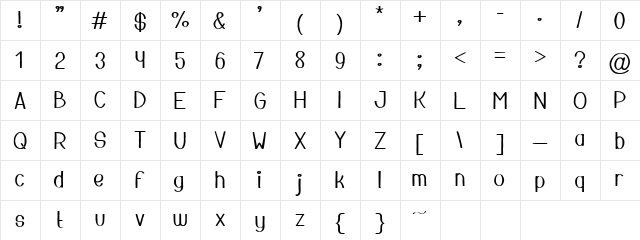
Mesothelioma Regular
Design Context for Mesothelioma Typeface
Mesothelioma offers clean, dependable letterforms without strong stylistic allegiance, making it a practical choice for designers who need flexibility.
Pro Tip: Use Mesothelioma in both headline and body roles to test its range before committing to a single application.